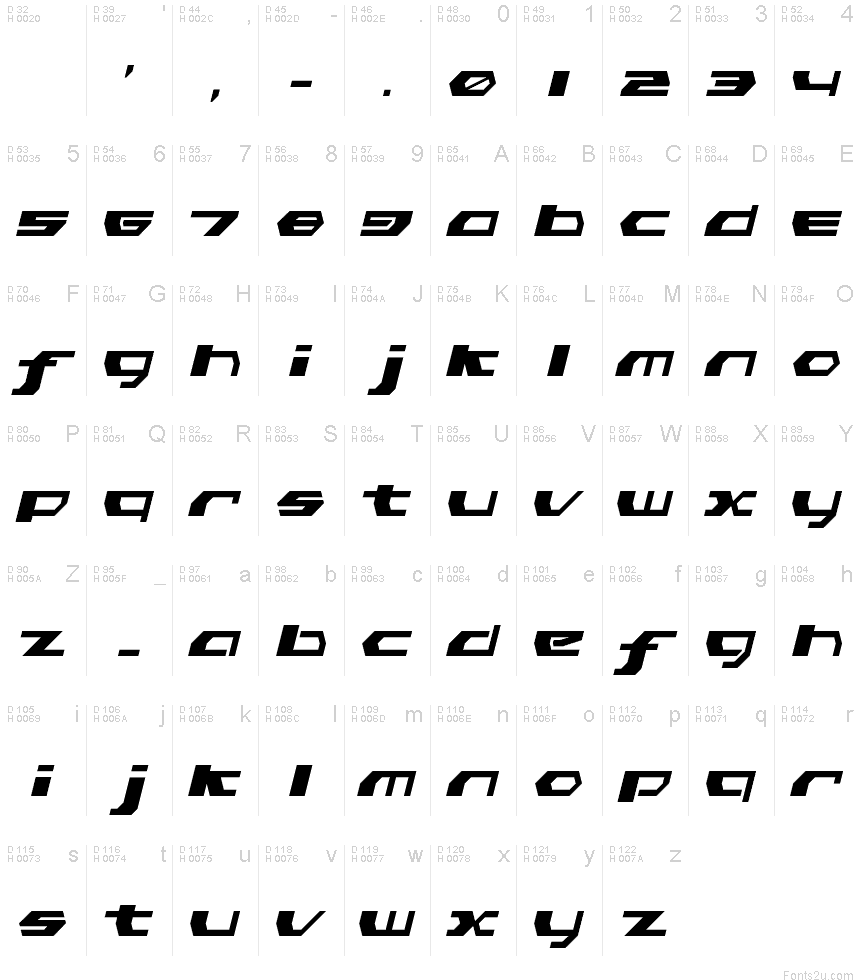
Pink Has Gone Extinct Oblique LDR Regular
Combining futurism and art-deco, all the 5 variants of Pink Has Gone Extinct break boundaries. 3 different weights + 2 special versions.